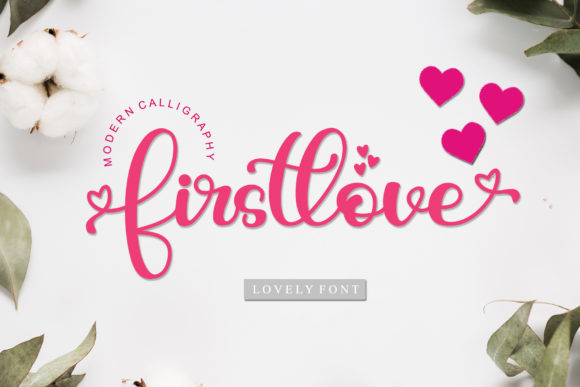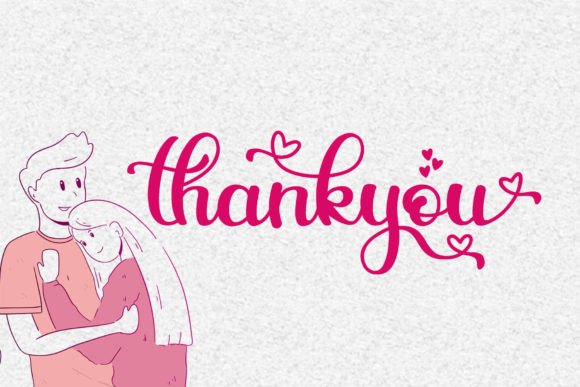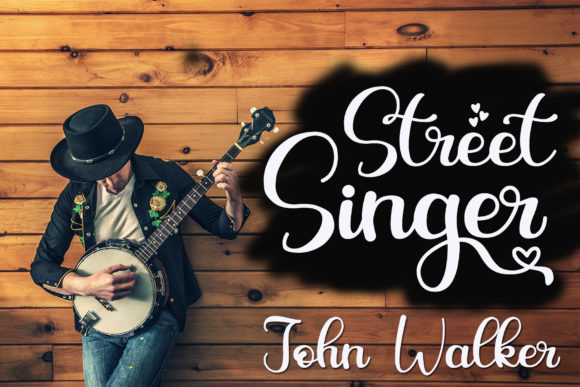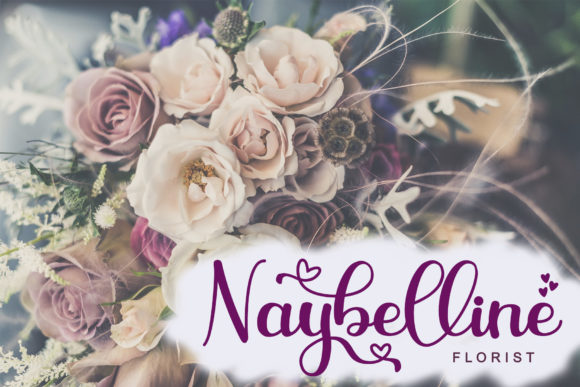
About Firstlove Font
Firstlove is a stunning and elegant calligraphy typeface that exudes romance and grace. With its beautifully designed characters that seem to dance along the baseline, Firstlove adds a touch of sophistication to any design.
This versatile font can be used in a variety of projects, making it a valuable addition to your font collection. Whether you’re creating a logo, designing wedding invitations, crafting headlines, printing t-shirts, or working on letterheads, Firstlove will elevate your designs and give them a luxurious and refined look.
The PUA (Private Use Area) encoding of Firstlove allows you to easily access all the glyphs and swashes. This means you have full control over the various decorative elements and alternate characters that are available with the font. You can add flourishes, ligatures, and swashes to customize your text and make it even more visually appealing.
Firstlove is particularly well-suited for projects that require an elegant and romantic touch. Its flowing and delicate letterforms create a sense of beauty and grace, making it perfect for wedding stationery, love-themed designs, and high-end branding.
Whether you’re designing signage, labels, news articles, posters, or badges, Firstlove brings an air of elegance and charm to your compositions. Its versatility allows it to adapt to different design styles and aesthetics, from classic and timeless to modern and chic.
The graceful curves and flourishes of Firstlove make each letter a work of art. It adds a touch of handcrafted beauty to your designs, evoking a sense of craftsmanship and attention to detail. The font draws the viewer’s eye and creates a memorable visual impact.
Overall, Firstlove is a romantic and graceful calligraphy typeface that brings a touch of elegance to any design project. Its PUA encoding provides easy access to a wide range of decorative elements, allowing you to create truly customized and visually stunning compositions. Let Firstlove add a sense of luxury and refinement to your next design endeavor.